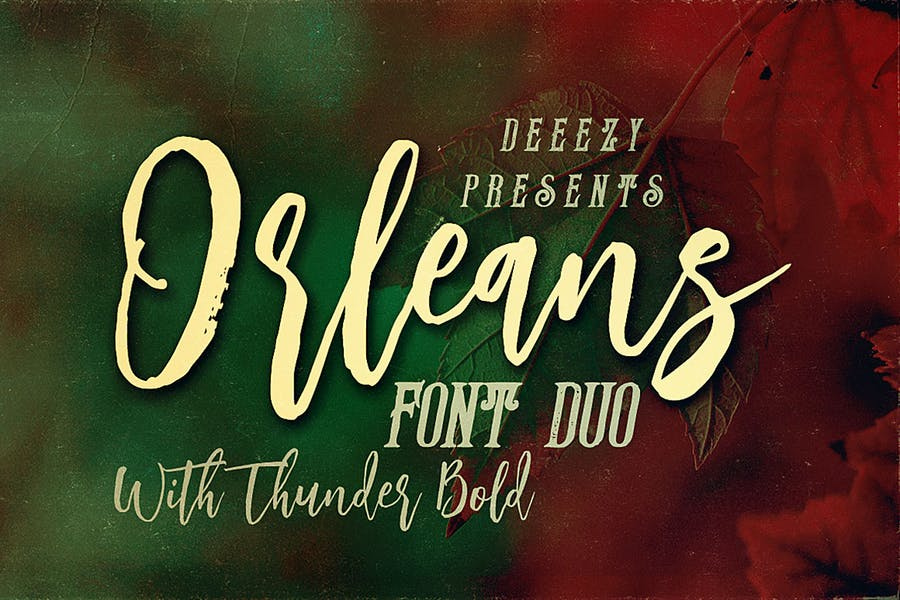
Orleans Script Font Duo
Orleans Script Font Duo is perfect for elegant wedding invitations, sophisticated event planning, upscale hospitality branding, refined cultural venues, distinguished social gatherings, luxury hotel communications, graceful catering services, classic southern restaurants, prestigious celebration materials, and authentic Louisiana lifestyle brands.
Orleans Script Font Duo creates excitement because it masterfully captures the graceful elegance and cultural sophistication of New Orleans heritage with its perfectly paired typefaces that embody both aristocratic refinement and soulful warmth. The font duo's complementary styles instantly convey southern charm and cultural distinction, making any brand appear elegantly rooted and authentically sophisticated. Its carefully balanced contrast between refined elegance and cultural warmth creates an immediate sense of southern hospitality that resonates with audiences seeking refined experiences, cultural quality, and products that celebrate the transformative beauty of New Orleans culture and southern sophistication.
The Orleans Script Font Duo family includes multiple weights and styles across both fonts: Script, Sans, Regular, Bold, Light, Medium, Italic, Elegant, Condensed, and Southern versions. Each variant maintains the duo's signature cultural character while offering comprehensive design flexibility for sophisticated southern brand systems requiring both refined elegance and cultural authenticity.
This distinguished typeface pair represents the perfect union of southern elegance with contemporary sophistication for refined hospitality brands and cultural organizations. Orleans Script Font Duo Free Download provides luxury hospitality enterprises and cultural institutions with access to premium dual typography that captures the essence of New Orleans sophistication and southern cultural excellence. The font duo's elegant harmony and cultural balance make it ideal for creating memorable experiences that celebrate the profound beauty of southern culture and refined hospitality. Whether you're developing comprehensive hospitality identity systems, creating materials for cultural venues, designing communications for luxury southern establishments, or producing content for refined celebration services, this font duo delivers the authentic New Orleans atmosphere that resonates with audiences seeking genuine cultural experiences, southern quality, and the refined elegance that comes from embracing authentic Louisiana heritage. Its versatile pairing ensures outstanding performance across both prestigious printed materials and sophisticated digital cultural platforms while maintaining perfect harmony between refined elegance and southern warmth. The fonts excel in applications requiring cultural credibility and southern appeal. Hospitality professionals appreciate the duo's ability to convey New Orleans authenticity while inspiring cultural celebration, essential qualities for building trust with discerning clients seeking authentic southern experiences. The comprehensive character sets include cultural flourishes and extensive international language support, making it perfect for global southern heritage brands and international cultural organizations seeking to communicate authentic New Orleans culture, southern hospitality, and refined elegance to diverse worldwide audiences who embrace southern traditions, appreciate cultural sophistication, and value the transformative power of genuine New Orleans heritage that creates unforgettable experiences through graceful hospitality, cultural richness, and the timeless elegance of southern charm that welcomes everyone with warmth, sophistication, and the authentic spirit of Louisiana culture.